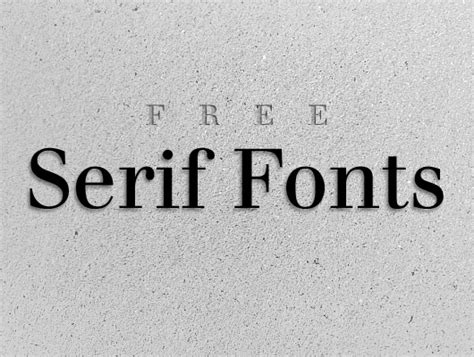
Free Script Serif Fonts / Giveny Serif Font - Befonts.com / Including serif, sans serif, script, display, brush and grotesque.. You can use these fonts to create custom styles. Font squirrel relies on advertising in order to keep bringing you great new free fonts and to keep making improvements to the web font generator. On fontshub.pro, you can download fonts for free and use them on your site to design headlines, quotes, paragraphs, lists, or other text elements. Midline font duo is a two different font styles : Fonts of this category «cyrillic fonts».
This collection includes all types of serifs from formal and elegant serifs perfectly suited for invitations and stationery, to quirky, casual or vintage inspired. Serif typefaces have small projections at the ends of the letter strokes. Including serif, sans serif, script, display, brush and grotesque. On this page you can watch preview script category fonts from our designers. The whole thing of the messages consisting of includes their tremendous superb pieces.
Serifs are generally associated with authority, tradition, respect, and grandeur.